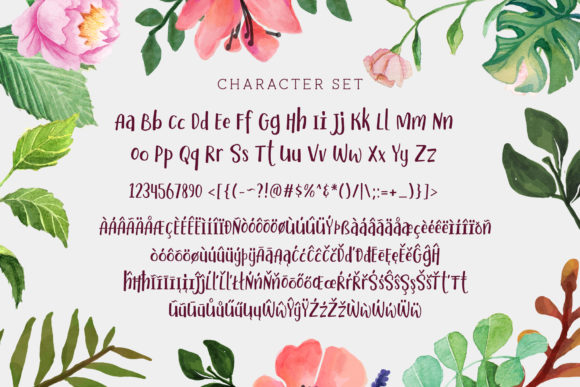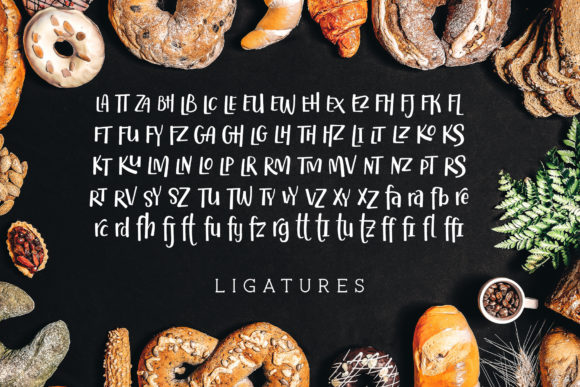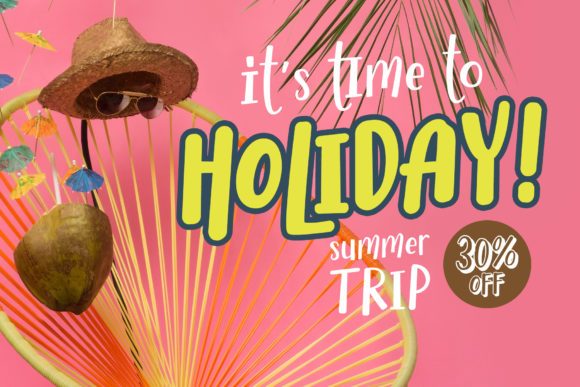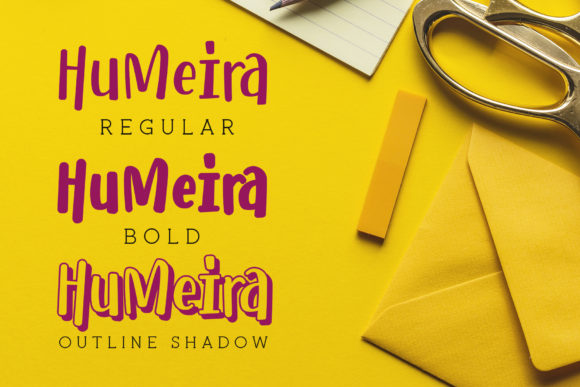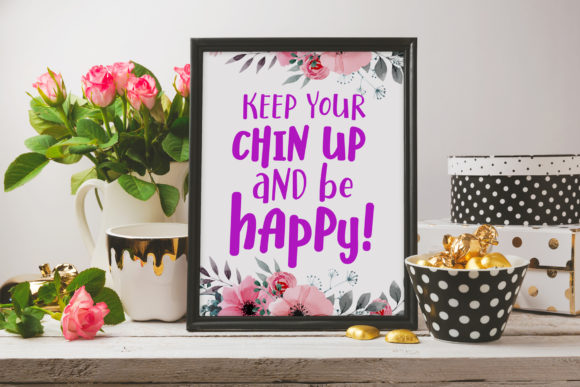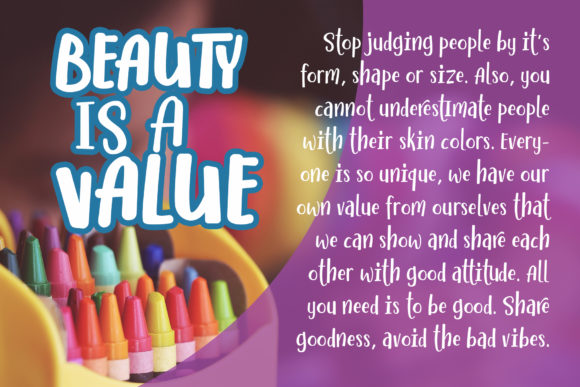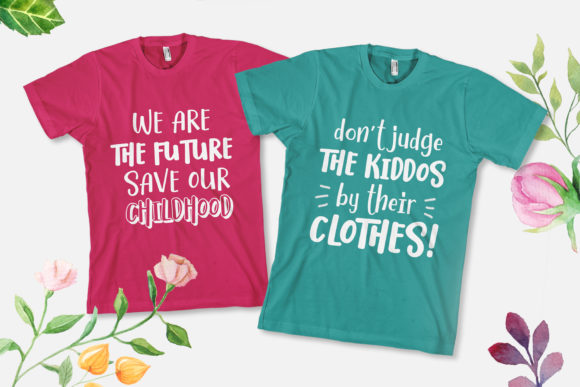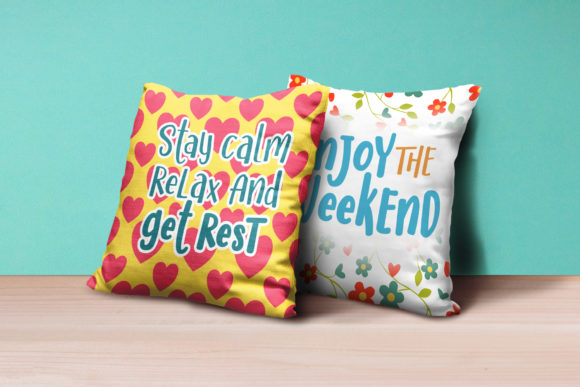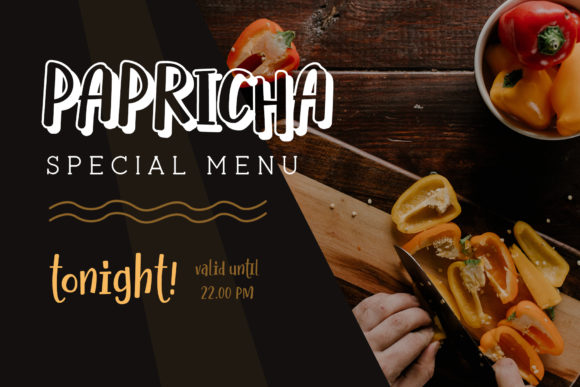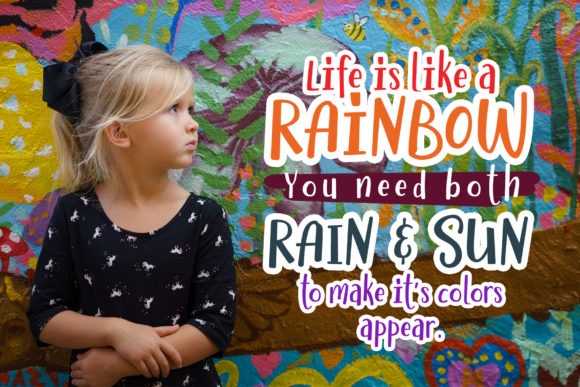
HomeScript FontsHumeira Font Script Fonts Humeira Font FacebookXPinterestWhatsApp Humeira Font Poster 2 Humeira Font Poster 3 Humeira Font Poster 4 Humeira Font Poster 5 Humeira Font Poster 6 Humeira Font Poster 7 Humeira Font Poster 8 Humeira Font Poster 9 Humeira Font Poster 10 Humeira Font Poster 11 Humeira Font Poster 12 About Humeira Font Humeira is inspired by doodles and handwriting, making it an authentic and dynamic script! DOWNLOAD ON CREATIVE FABRICAThis font is sold and delivered by Creative Fabrica. Font Canyon may earn a commission if you buy through this link. People also explored Mister Smiley Font Christmas Moments Font Jacqueline Sabastian Font Women Frame Font Rustte Font Swirl Leaf Monogram Font Now Spiders Font Humairah Font 357 0 TagsHumeira Font Previous articleMisano FontNext articleBattara Script Font LEAVE A REPLY Cancel reply Comment: Please enter your comment! Name:* Please enter your name here Email:* You have entered an incorrect email address! Please enter your email address here Website: Save my name, email, and website in this browser for the next time I comment. Personal Use Free Persephone Free Personal Use Free Read more about this font Rocketto Personal Use Free Read more about this font Aldenburg Personal Use Free Read more about this font Authurium Personal Use Free Read more about this font BLOG How to Cut Any Font on Cricut: Convert a Font to SVG (Free) Turn any font into a clean SVG so it cuts crisp on Cricut - a quick 3-step workflow using a free font-to-SVG tool. Top 7 Google Fonts Alternatives for Faster and Privacy-Friendly Web Design (2025) Best Fonts for T-Shirt Design – Top 2025 Picks Where to Buy American Fonts Online in 2024